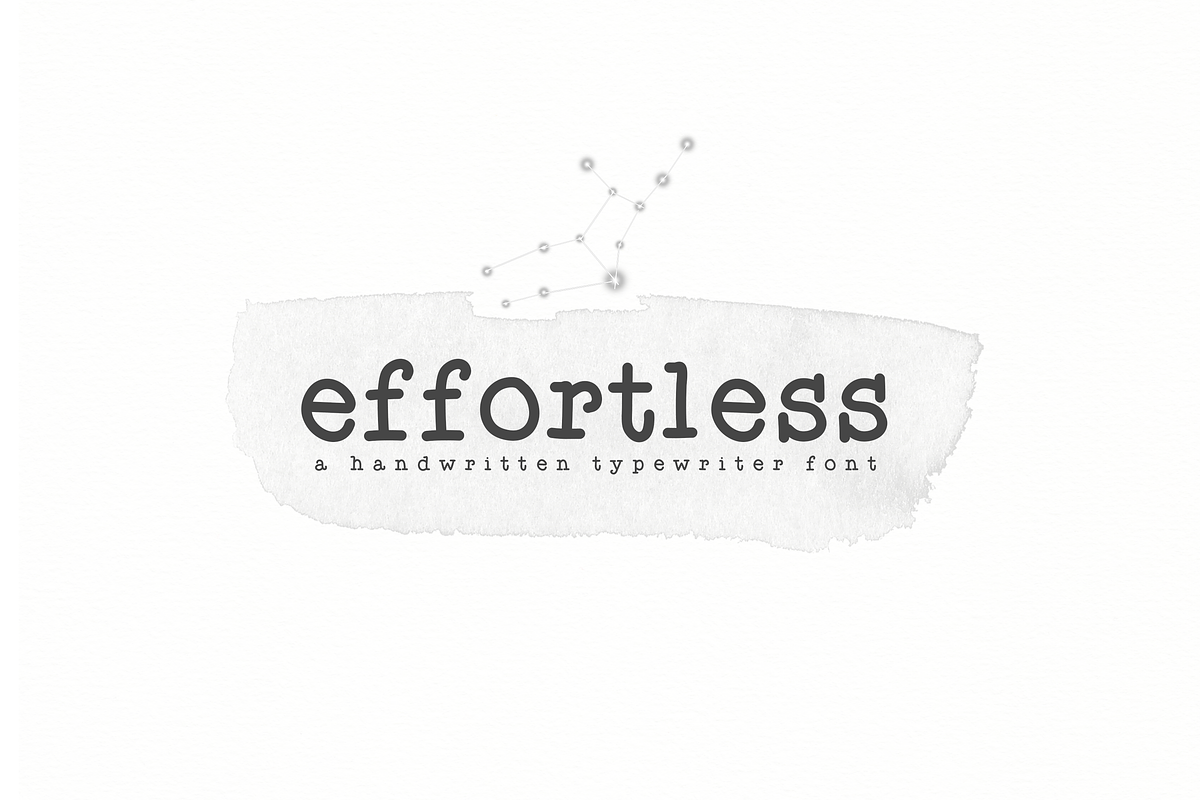
Effortless - Typewriter Font is perfect for vintage branding projects, retro poster design, nostalgic blog headers, writer-themed materials, old-school manuscript designs, vintage office aesthetics, classic journalism layouts, retro cafe signage, authentic book covers, literary magazine designs, vintage correspondence materials, and nostalgic communication designs.
Effortless - Typewriter Font is exciting because it effortlessly captures the authentic charm and nostalgic appeal of classic typewriter machines through genuine mechanical letterforms that transport readers back to the golden age of writing and authentic literary creation. This remarkable typeface features the distinctive characteristics of vintage typewriters including slight imperfections, consistent spacing, and the satisfying rhythm that defined an era of thoughtful, deliberate communication. The font's authentic mechanical aesthetic creates instant emotional connections with audiences who appreciate genuine vintage craftsmanship and literary tradition.
Effortless - Typewriter Font includes comprehensive font families: Regular Typewriter Style, Bold Strike Weight, Light Ribbon Touch, Medium Balanced Format, Italic Mechanical Slant, Condensed Compact Width, Extended Wide Format, Distressed Aged Version, Clean Restored Alternative, and Special Vintage Symbols, providing complete solutions for authentic typewriter and vintage design projects that celebrate literary heritage and mechanical craftsmanship.
This authentic typography solution transforms digital communications into nostalgic typewriter experiences through its genuine mechanical aesthetic and vintage writing machine characteristics. Effortless - Typewriter Font Free Download enables designers and vintage enthusiasts to access premium typewriter typography that instantly adds authenticity, nostalgia, and literary character to any creative project. The font's carefully replicated typewriter elements ensure genuine vintage appeal while maintaining excellent readability and distinctive mechanical character.
Writers, vintage brands, and literary businesses trust Effortless - Typewriter Font for its ability to communicate authenticity, literary heritage, and nostalgic craftsmanship to audiences seeking genuine vintage experiences and authentic writing aesthetics. The typeface's mechanical construction performs beautifully across various applications, from intimate literary communications to large-scale vintage branding campaigns. Its extensive character support includes multilingual capabilities and vintage design elements that enhance authentic typewriter brand presentations.
The design authenticity behind Effortless - Typewriter Font draws from extensive research into vintage typewriter mechanics, classic writing machines, and the rich tradition of mechanical typography that defined literary communication for decades. This heritage-focused approach creates a font that feels genuinely mechanical while maintaining contemporary usability across different vintage contexts and literary brand expressions.
Whether creating writer identities, vintage publication materials, or nostalgic marketing campaigns, this typewriter font delivers exceptional results that capture the essence of authentic mechanical writing and literary craftsmanship. Download Effortless - Typewriter Font today and discover how premium typewriter typography can transform your design projects into nostalgic expressions of literary tradition, mechanical authenticity, and the timeless appeal of genuine typewriter communication.